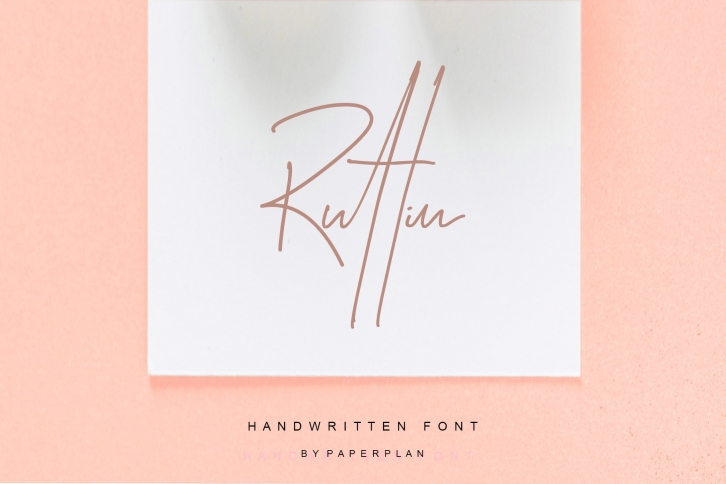
Ruttin is a must-have signature script that has a diverse set of alternates that will surely be used many times over in various projects in the future. This collection fills a void and separates itself from other scripts available. other than that ruttin is designed using a variety of ligature which makes the cast more natural this works well for many applications. Everything from personal branding & wedding invitations to advertising could benefit from this collection of signature fonts.